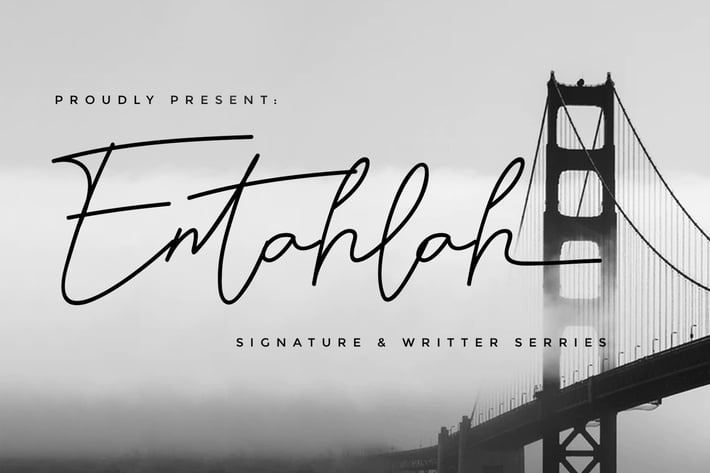
Entahlah Signature Font
Entahlah Signature is a clean, minimalist handwritten script with smooth strokes and a modern signature flow. Its simple elegance makes it perfect for branding, personal logos, and social media visuals that need a refined yet effortless handwritten touch.
Clean signature script with soft, natural strokes
Balanced, easy-to-read letterforms for name marks and headlines
Handwritten aesthetic with subtle stylistic character
Suitable for both digital and printed creative outputs
Personal branding & logo signatures
Social media posts & profile headers
Wedding invitations & romantic quotes
Minimalist posters & editorial titles
Book covers, packaging, and media kits
Fashion, beauty, and lifestyle branding
Effortless signature style for clean, modern branding.